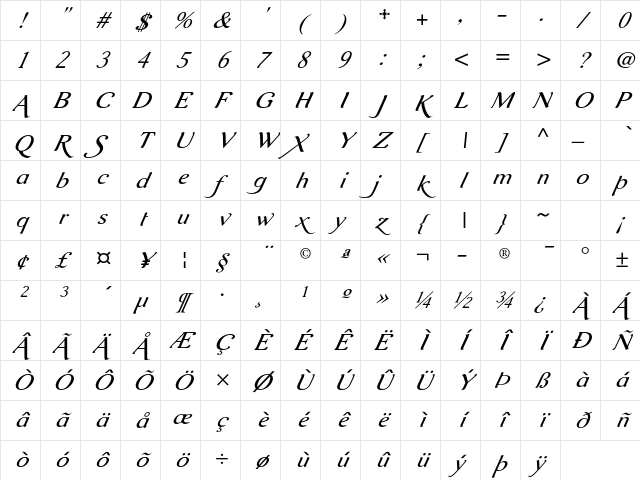
Aurelis ADF Script No2 Std flows with the natural rhythm of handwritten lettering, making it ideal for designs that call for warmth and personal expression.
Font Pairing: Combine Aurelis ADF Script No2 Std with a simple geometric sans for maximum contrast - the tension between flowing curves and clean structure is a classic typographic pairing.
Pro Tip: Use Aurelis ADF Script No2 Std for short runs of text - names, titles, or taglines. Extended body copy in script faces tires the eye quickly.